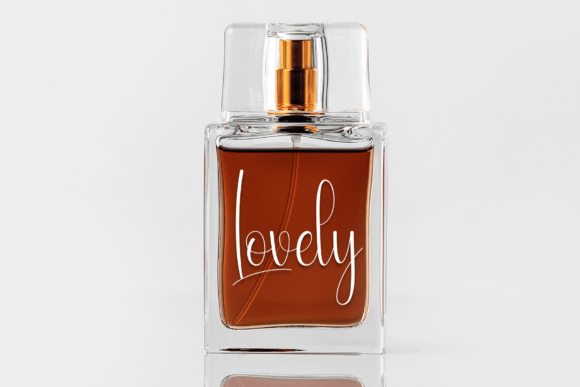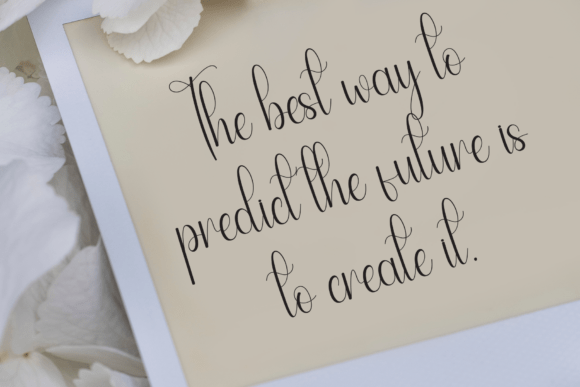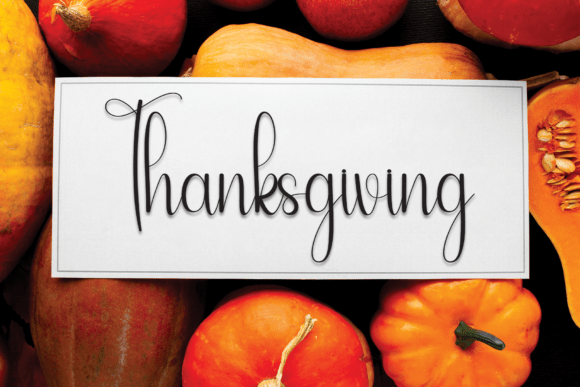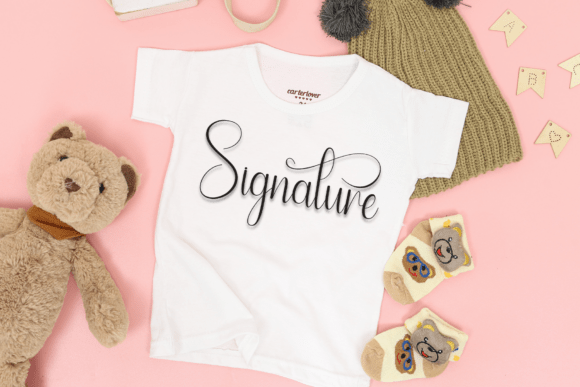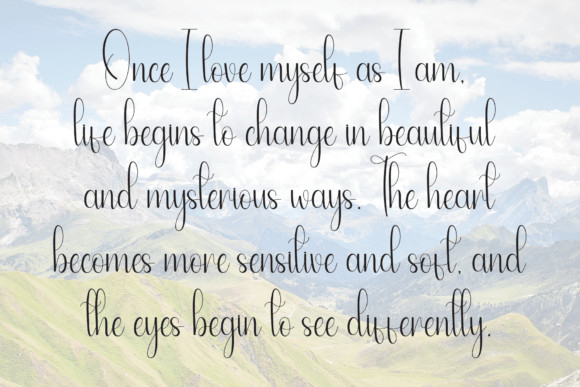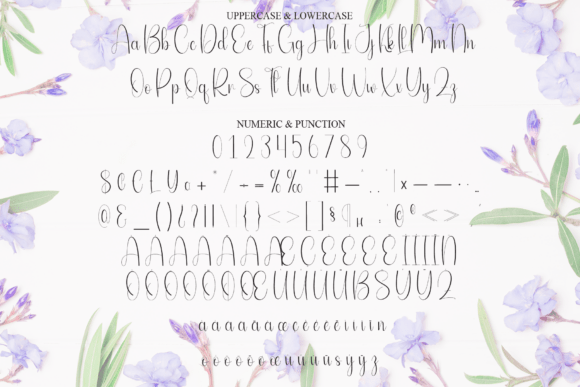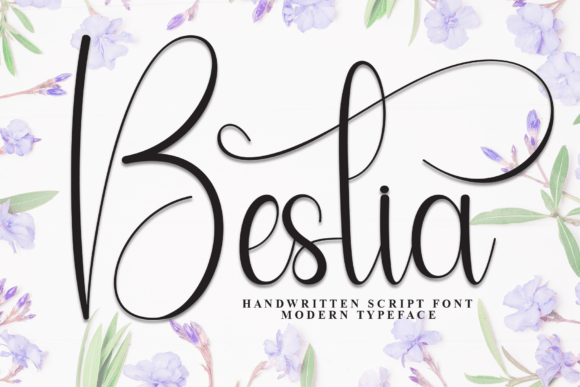
Unleash Your Creativity with Bestia Font: The Ultimate Handwritten Script Font
Are you a designer or crafter looking for a font that can add a touch of elegance and playfulness to your projects? Look no further than Bestia Font, a stylish handwritten script font that is taking the design world by storm. With its fluid strokes and charming curves, Bestia brings a personal feel to any design, making it perfect for logos, packaging, invitations, and more.
The Perfect Blend of Modern Elegance and Playfulness
Bestia Font is a masterful blend of modern sophistication and playful charm. Its sleek, cursive lines and delicate curves evoke a sense of refinement and luxury, while its whimsical touches and irregularities add a dash of personality and whimsy. Whether you’re designing a logo for a high-end brand or creating a custom invitation for a special occasion, Bestia Font is the perfect choice.
What Makes Bestia Font So Special?
- Fluid Strokes: Bestia Font features fluid, connected strokes that give it a smooth, handwritten feel. This makes it perfect for creating flowing, organic designs that capture the eye.
- Charming Curves: The font’s charming curves and irregularities add a touch of personality and whimsy to any design. This makes it ideal for designers who want to create unique and eye-catching projects.
- Modern Elegance: Bestia Font has a sleek, modern aesthetic that makes it perfect for high-end designs. Its clean lines and sophisticated curves evoke a sense of refinement and luxury.
- Playful Touch: Despite its elegance, Bestia Font also has a playful side. Its whimsical touches and irregularities add a dash of fun and personality to any design.
Bestia Font is an incredibly versatile font that can be used for a wide range of design projects. Here are just a few ideas to get you started:
- Logos: Bestia Font is perfect for creating custom logos that are both elegant and eye-catching. Its fluid strokes and charming curves make it ideal for brands that want to stand out.
- Packaging: Add a touch of sophistication and whimsy to your packaging designs with Bestia Font. Its modern elegance and playful touch make it perfect for product labels, packaging inserts, and more.
- Invitations: Create custom invitations that are both stylish and personal with Bestia Font. Its fluid strokes and charming curves make it perfect for wedding invitations, birthday invitations, and more.
Tips for Using Bestia Font
Here are a few tips for getting the most out of Bestia Font:
- Experiment with Different Sizes: Bestia Font looks great in a variety of sizes, from large headlines to small body text. Experiment with different sizes to find the perfect fit for your design.
- Play with Color: Bestia Font is a versatile font that looks great in a wide range of colors. Experiment with different colors and color combinations to find the perfect fit for your design.
- Mix and Match: Don’t be afraid to mix and match Bestia Font with other fonts and design elements. Its unique style and personality make it a great addition to any design.
Bestia Font is a stylish handwritten script font that is perfect for designers and crafters who want to add a touch of elegance and playfulness to their projects. With its fluid strokes, charming curves, and modern aesthetic, Bestia Font is ideal for logos, packaging, invitations, and more. Whether you’re a seasoned designer or just starting out, Bestia Font is a great addition to any design toolkit.